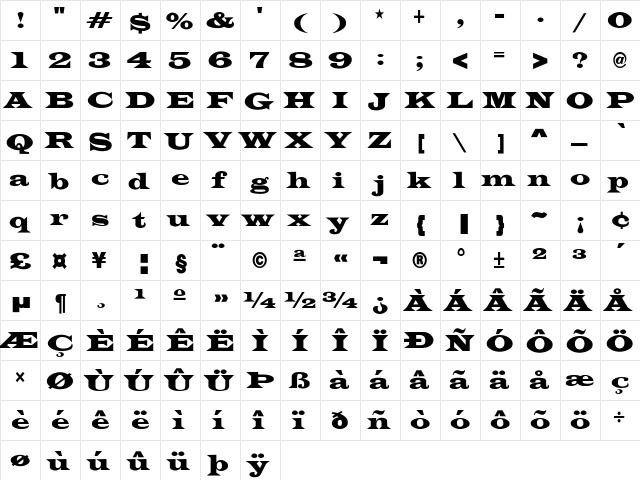
LatinWideCnd-Normal Regular
Design Context for LatinWideCnd-Normal Typeface
LatinWideCnd-Normal offers clean, dependable letterforms without strong stylistic allegiance, making it a practical choice for designers who need flexibility.